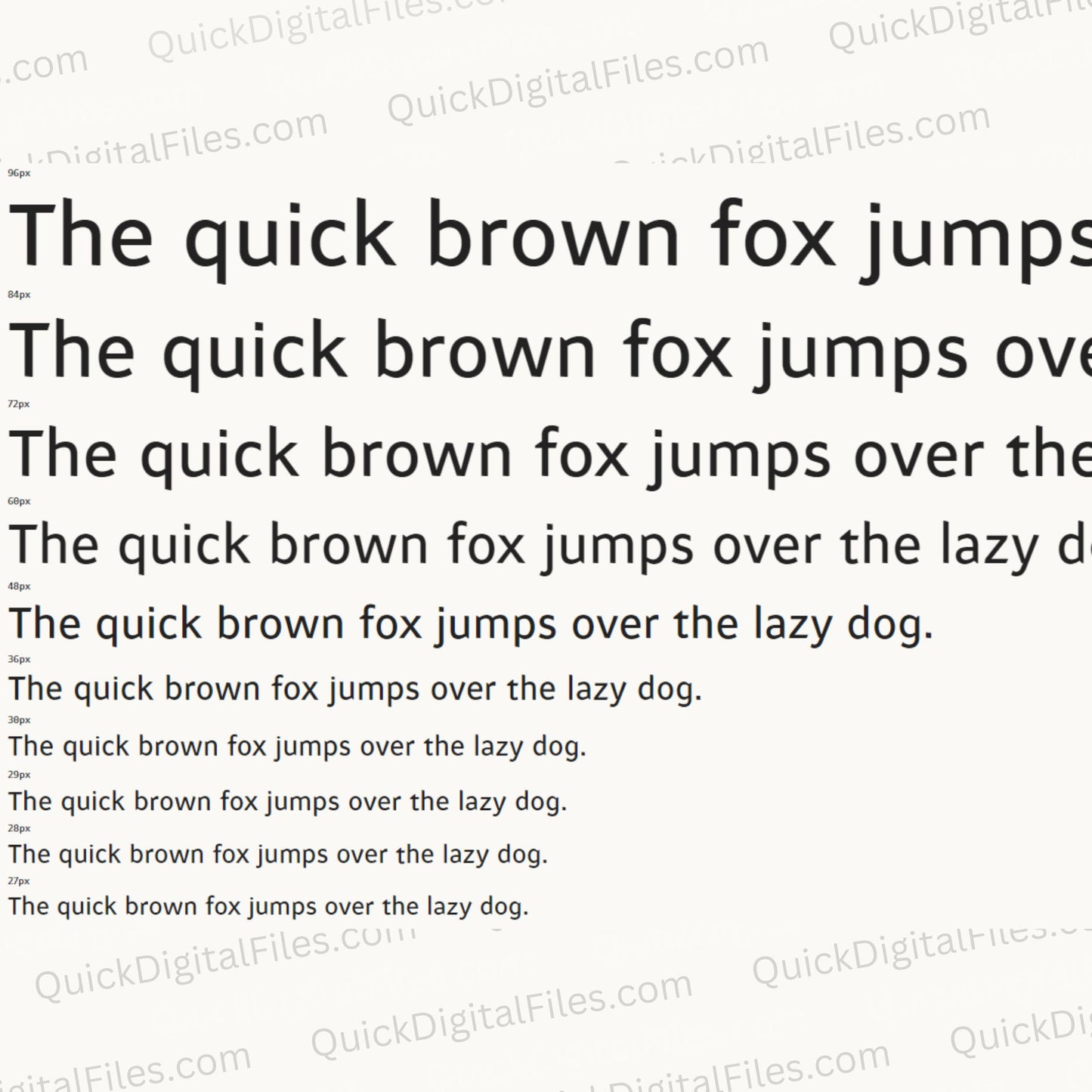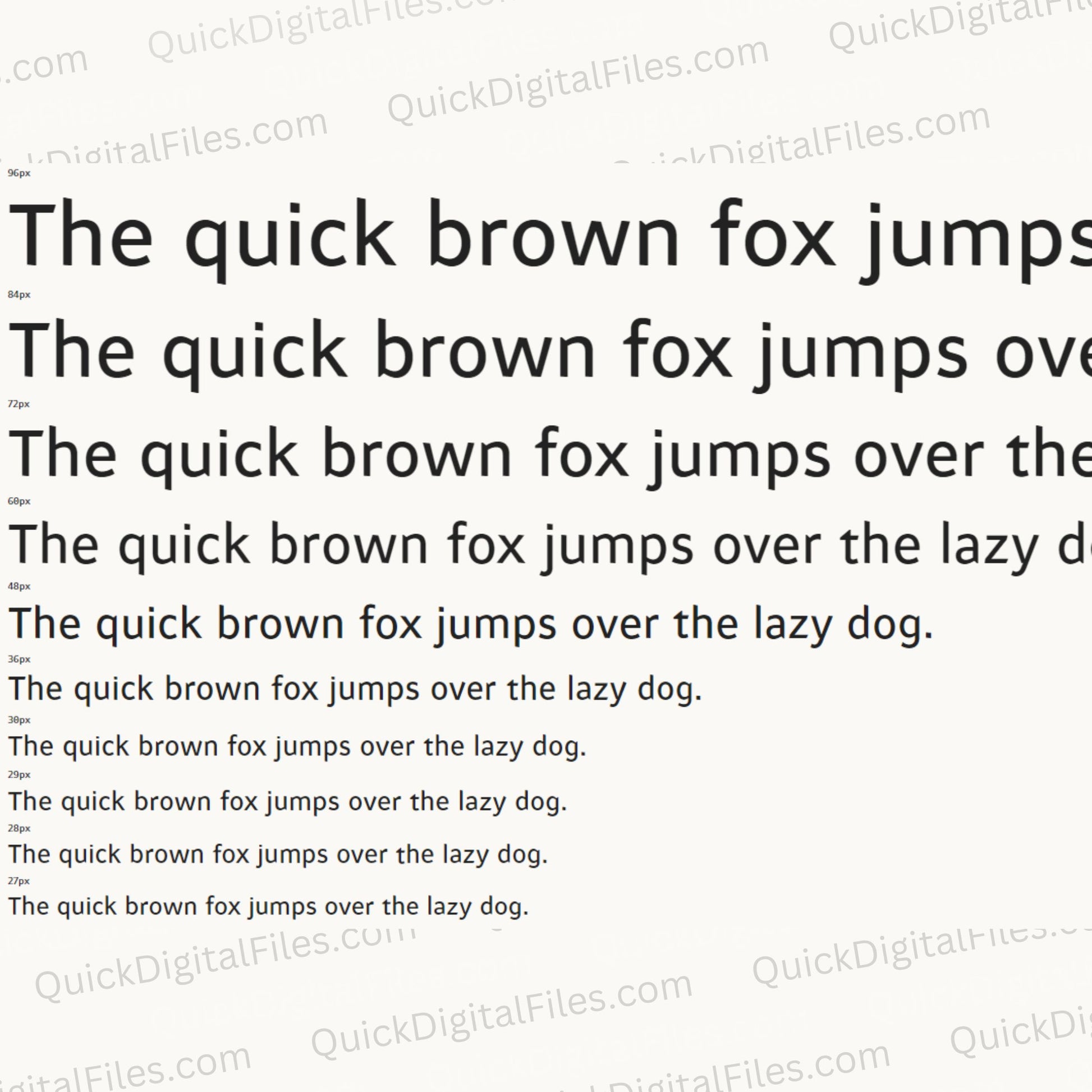
Anke Print: Font
Introducing the Anke Print Font TTF, a basic yet professional typeface perfect for a wide range of design projects. This versatile font supports over 34 languages, making it an ideal choice for global use. Whether you're working on print or digital media, Anke Print provides a clean, readable, and polished look.
- Professional Style: The Anke Print Font features a basic, clean, and professional style suitable for various applications.
- Versatile Use: Ideal for documents, presentations, websites, graphic designs, and more.
- Font Style: Basic, Professional